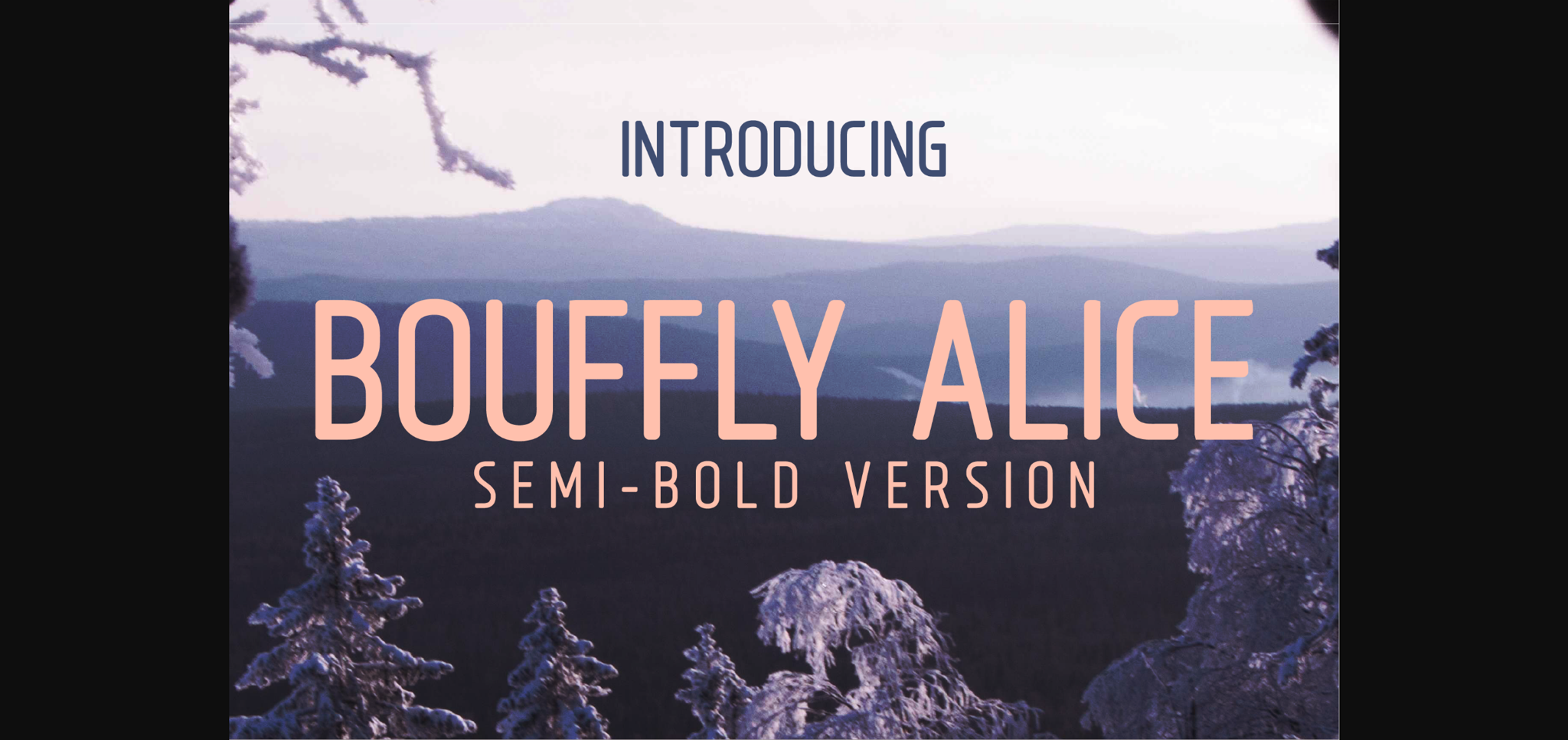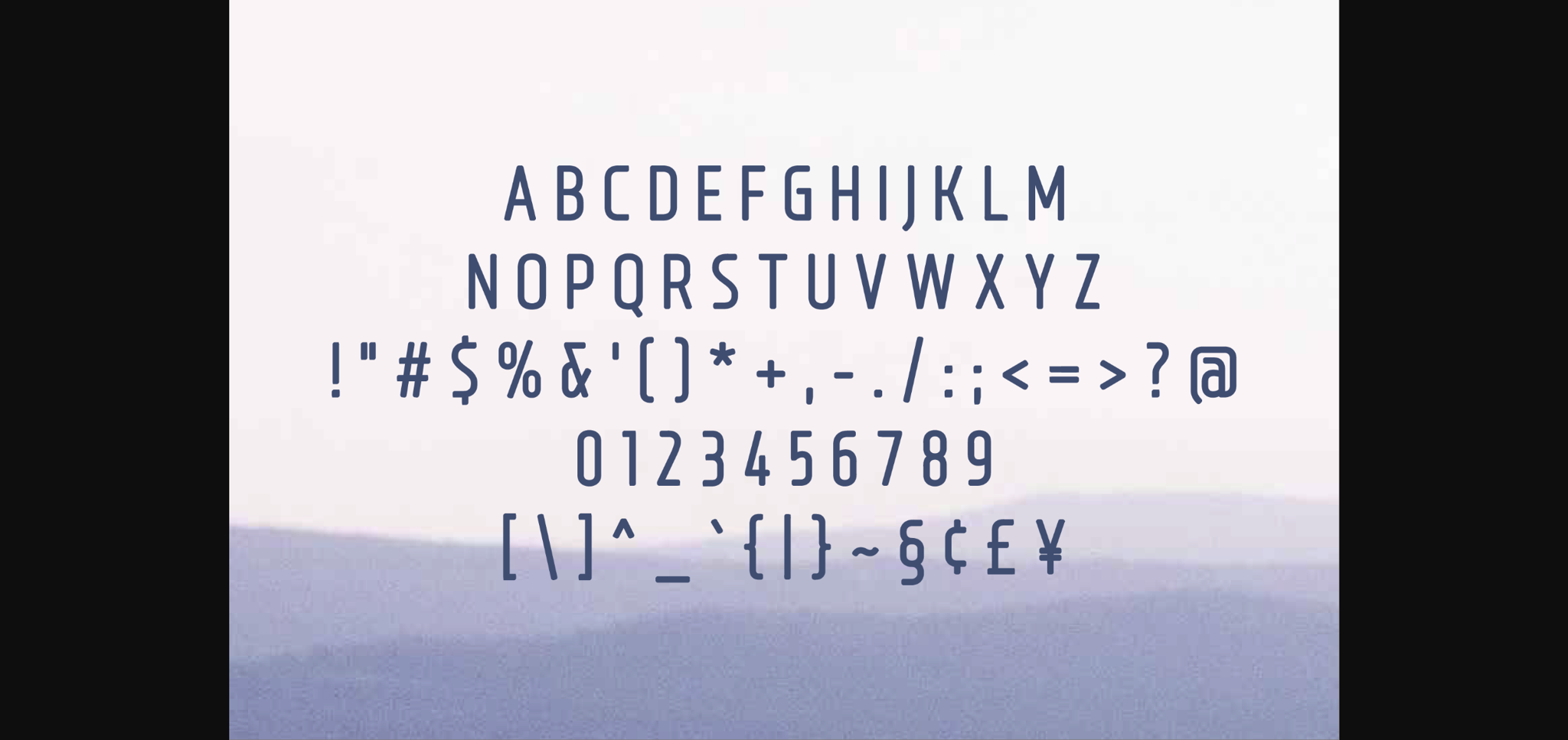
HomeSans Serif FontsBouffly Alice Semi-Bold Font Sans Serif Fonts Bouffly Alice Semi-Bold Font FacebookXPinterestWhatsApp 1 of 4 ... Bouffly Alice Semi-Bold Font Poster 2... Bouffly Alice Semi-Bold Font Poster 3... Bouffly Alice Semi-Bold Font Poster 4... About Bouffly Alice Semi-Bold Font Bouffly Alice Semi-Bold is a semi-bold and charming sans serif font with a timeless feel. Get inspired by its elegant simplicity! DOWNLOAD NOW People also explored Christmas Tinsel Font Brilliant Mastaka Font Bhatera Font Ander Font Loubotin Font Secret Garden Font Distem Font Baby Walk Font Beatrice Font 443 0 TagsBouffly Alice Semi-Bold Font Previous articleBouffly Alice Bold FontNext articleBouffly Alice Font LEAVE A REPLY Cancel reply Comment: Please enter your comment! Name:* Please enter your name here Email:* You have entered an incorrect email address! Please enter your email address here Website: Save my name, email, and website in this browser for the next time I comment. Personal Use Free Satori Personal Use Free Read more about this font Valentines Day Personal Use Free Read more about this font Round Geometric Personal Use Free Read more about this font Dealisya Personal Use Free Read more about this font BLOG Using Fonts in Digital Marketing: Tips to Strengthen Your Brand Identity In the realm of digital marketing, every visual element plays a crucial role in shaping a brand's identity, and fonts are no exception. The... Transform Your Website: Elevate Your Typography with 7 Best Web Font Generators Elegant Wedding Invitation Fonts – Handwritten & Script Fonts 5 Fonts That Will Dominate Design Trends in 2026